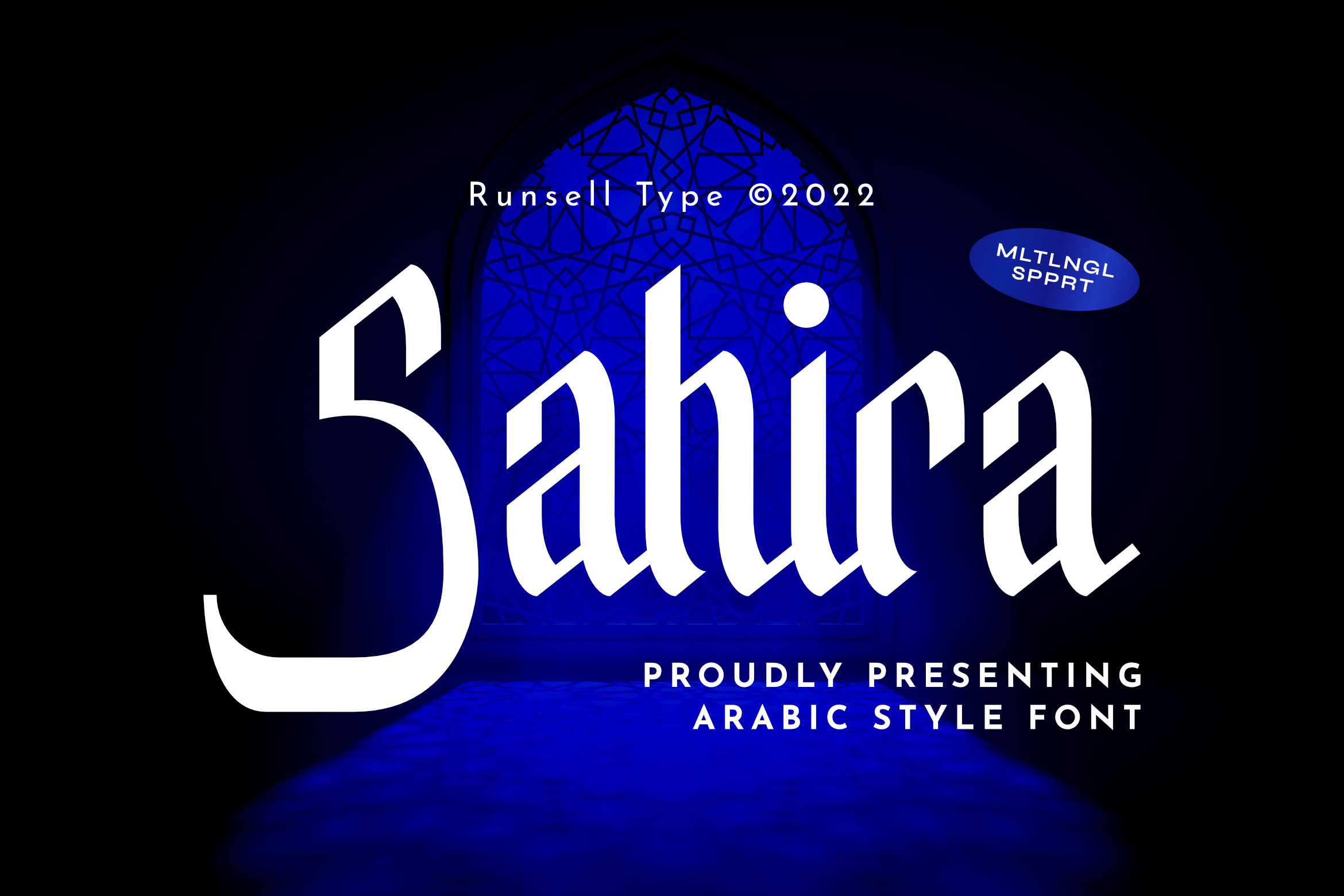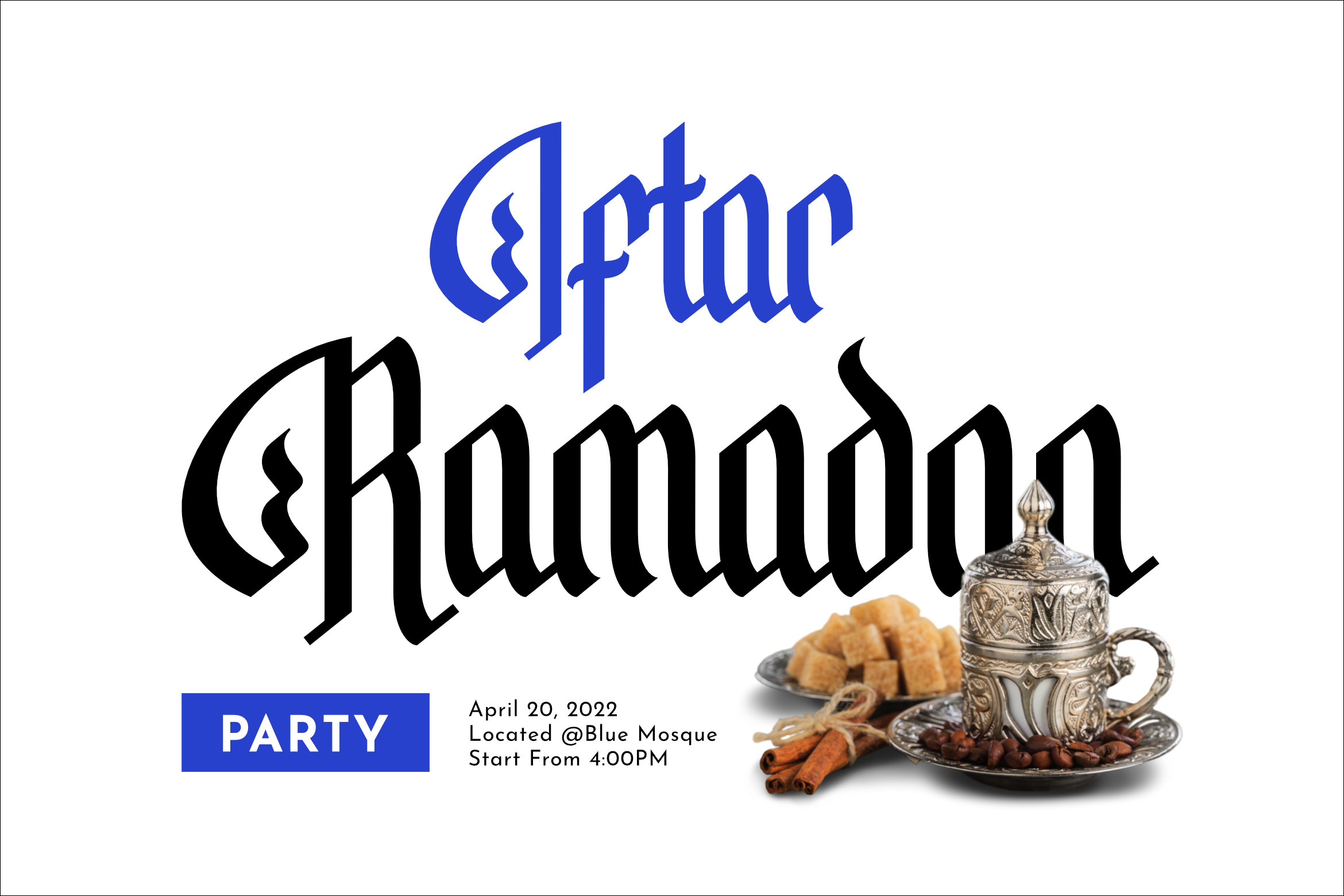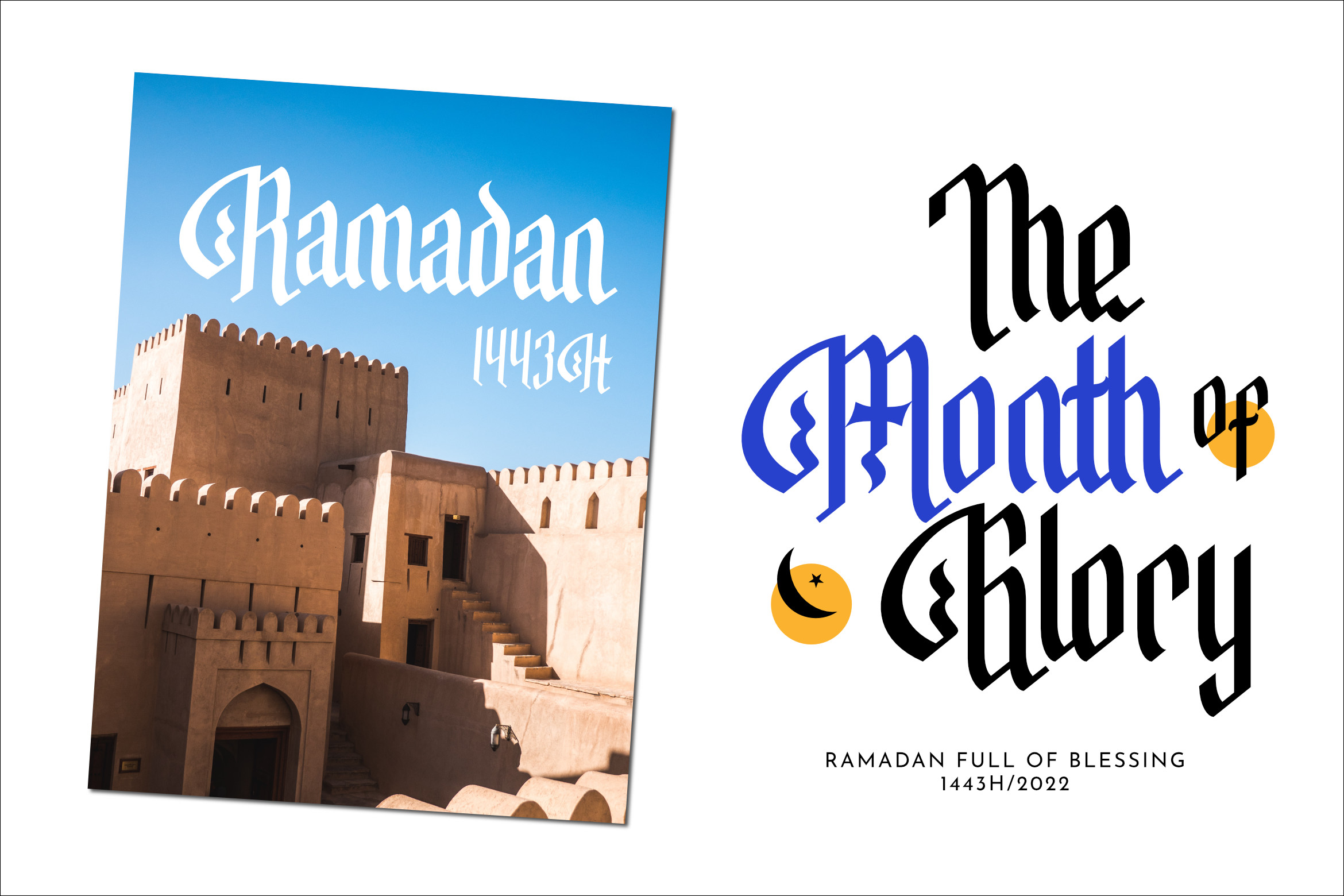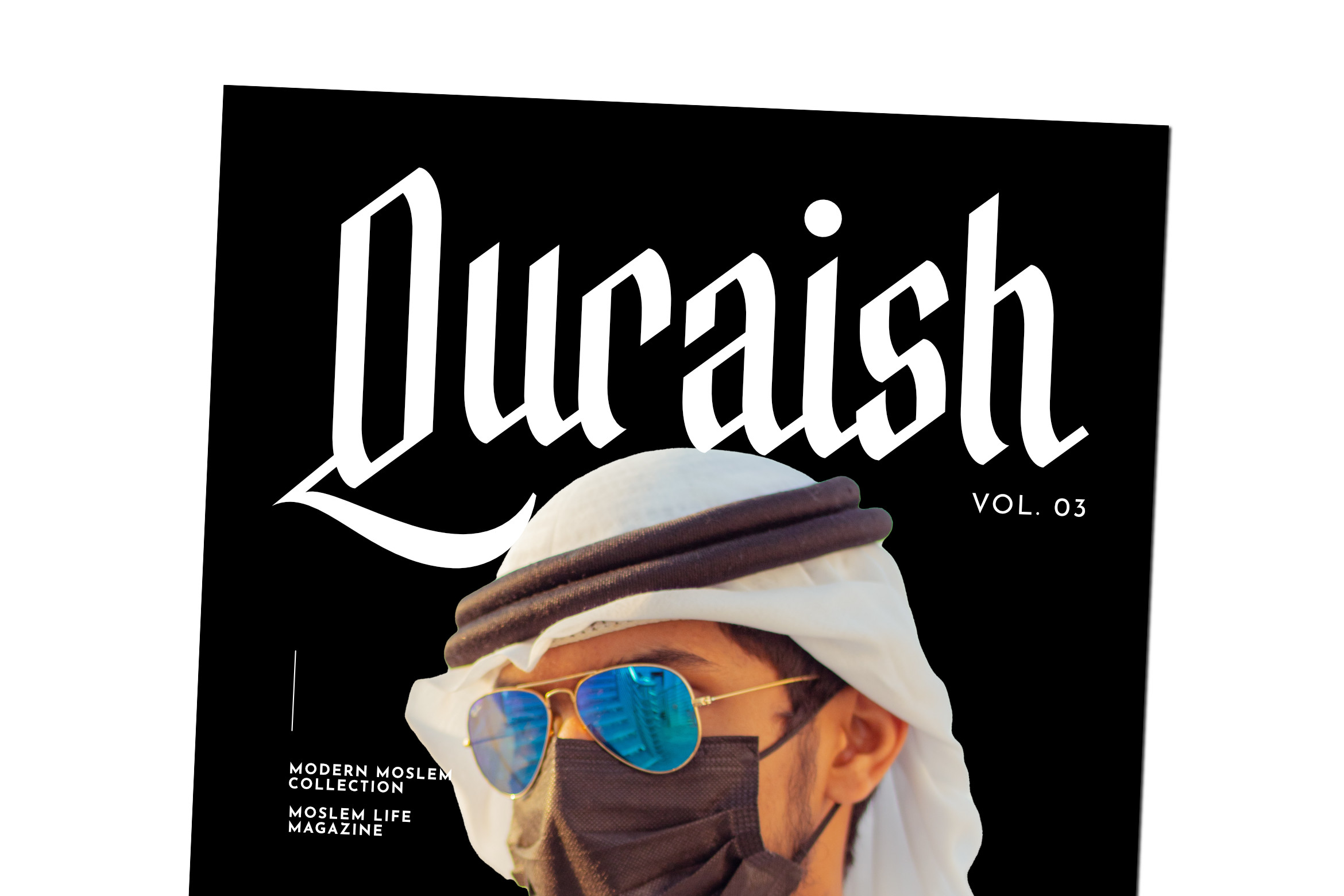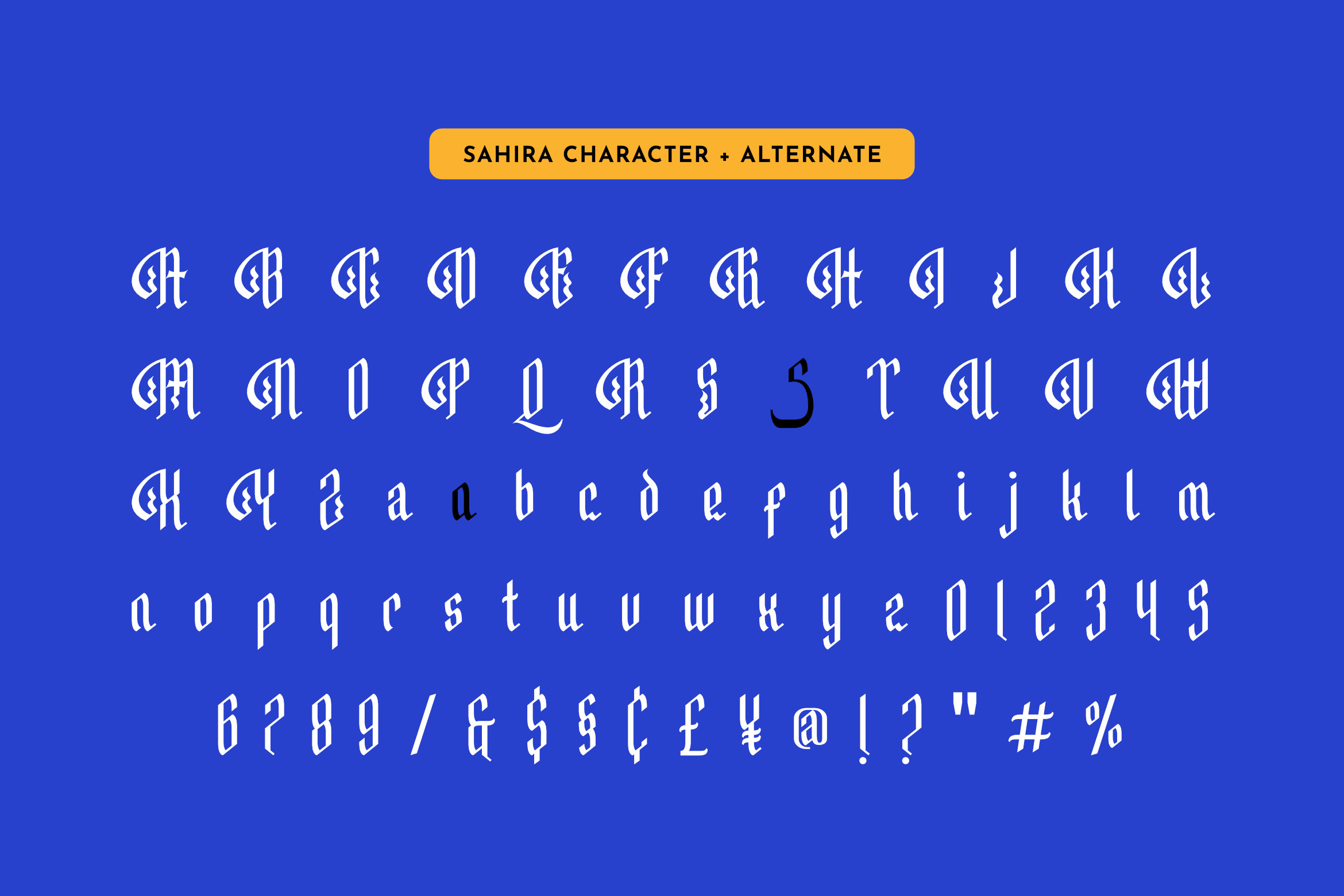
Sahira is an Arabic-inspired blackletter display font that seamlessly merges traditional Middle Eastern aesthetics with bold Gothic influences. Its pointed edges, tall proportions, and sharp serifs give it a dramatic yet dignified tone, making it perfect for Ramadan-themed projects, Islamic magazines, or cultural event posters. The font captures the solemnity of religious elegance while offering a modern interpretation through its stylish alternates and character set.
This typeface is multilingual-ready and includes both uppercase and lowercase characters, numerals, punctuation, and stylistic alternates. Sahira is ideal for branding, packaging, and editorial use where a spiritual and formal feel is needed without sacrificing readability. Whether you’re creating mosque signage, ceremonial invitations, or fashion lookbooks, Sahira adds depth, tradition, and visual character.